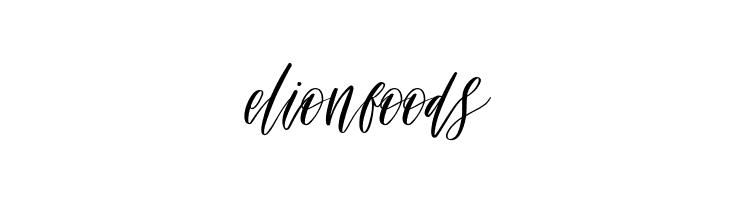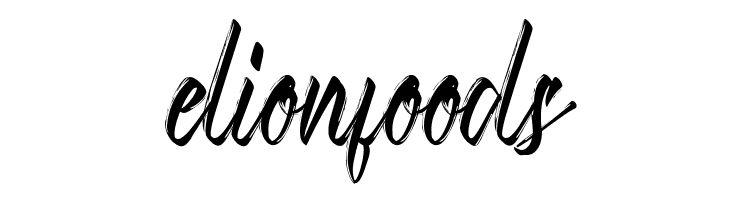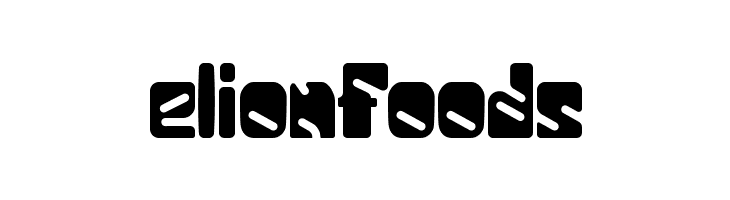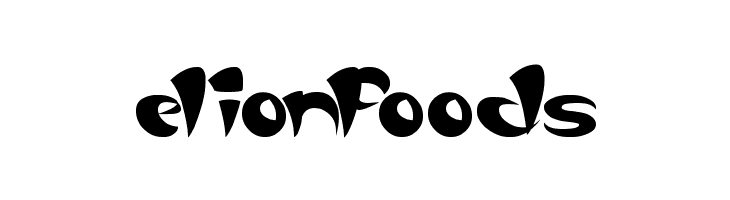
A flowing and elegant script font with connected letterforms.
A whimsical, hand-drawn font with thin, flowing lines and artistic flair.
A casual, handwritten font with elegant, flowing cursive style.
A dynamic and expressive script font with fluid, energetic strokes.
A bold, geometric font with a modern, artistic flair and unique cut-out patterns.
A playful, handwritten font with elongated, slanted characters and medium contrast.
A bold, hand-drawn font with an expressive, graffiti-like style.